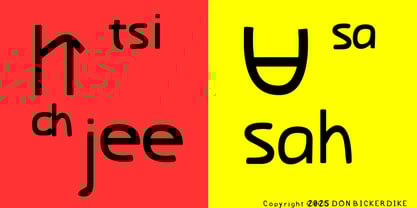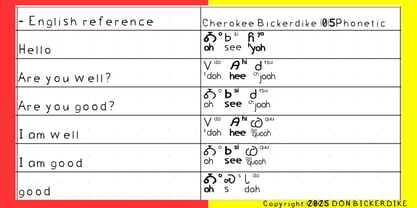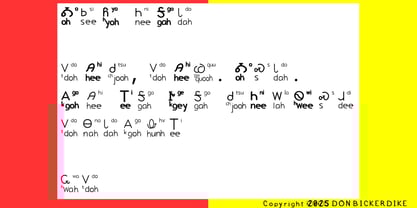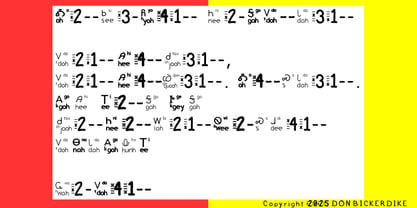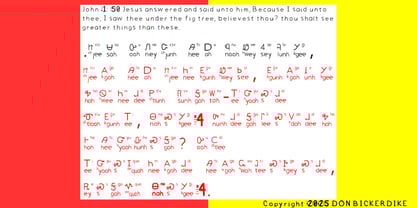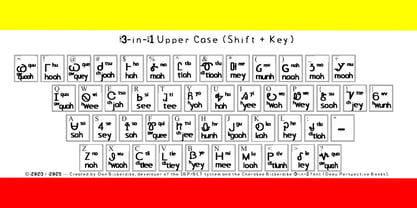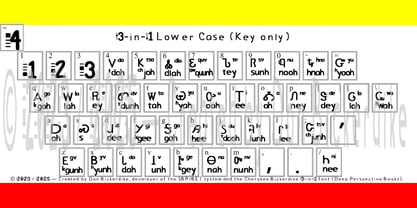
Cherokee Bickerdike 05
The Cherokee Bickerdike 05 Font Family was designed by Donald Bickerdike and published by Deep Perspective Books. Cherokee Bickerdike 05 contains 1 styles. More about this family
Introducing Cherokee Bickerdike 05 (Regular and Bold)! (The order page will show any current discounts applied automatically to support accessibility for learners.) The Cherokee Bickerdike 05 (Regular and Bold) is an innovative and revolutionary font designed to empower learners and speakers of the Cherokee language. It's a comprehensive educational tool that goes beyond a simple typeface, integrating three critical elements into each character to create an intuitive learning aid. (The Bold version applies the bold style to the numbers and punctuation only.) Each unique character provides a complete phonetic guide: • A large, clear syllabary character occupies the upper-left, serving as the primary visual representation of the syllable. • Directly below is the Bickerdike Extended Transliteration (B.E.T.), a custom phonetic system engineered for precision and consistency. For specific syllables, the B.E.T. also includes a smaller, alternate consonant character to clarify subtle sound variations. • To the right of the syllabary is the Standard Transliteration, offering a familiar reference for learners to check their understanding against conventional transliteration systems. Unique Features for Enhanced Learning This font also includes uniquely designed numerals, crafted to visually represent the phonetic tones of the Cherokee language, much like notes on a music score. • Numbers 1, 2, and 3 are each uniquely styled to represent their respective tone levels. • The number "4" is represented by a grave accent character (  ̀ ), providing a comprehensive and intuitive system for understanding and reproducing the phonetic tones of the language. For added clarity in syllable structure, the double quotation (") has been reassigned to type a hyphen (-). This allows the single apostrophe to be used to show a glottal stop. This unique feature helps users visually distinguish between single-keystroke syllable durations which are shorter (-) and double-keystroke syllable durations which are longer (--). This is a custom solution, as the Cherokee language does not require the use of a single apostrophe. All elements included in this font (the phonetic system, the unique number designs, and the custom punctuation usage) were created and copyrighted in 2023. These designs are featured in the original published eBook on the Cherokee language, Revolutionary Cherokee: What You See Is What You Say by font creator Don Bickerdike. For large-scale and enterprise licensing, including unlimited user licenses or for use by governments and large organizations, please contact Monotype directly for a custom quote.